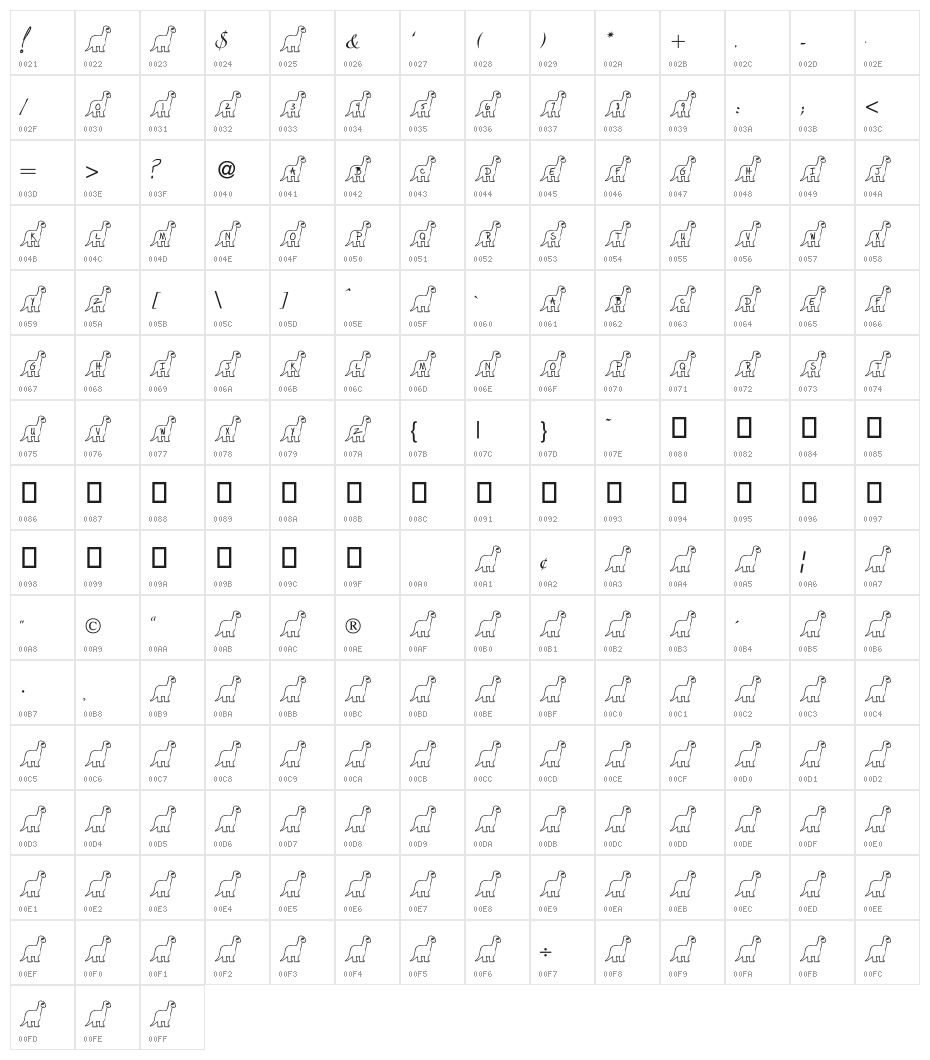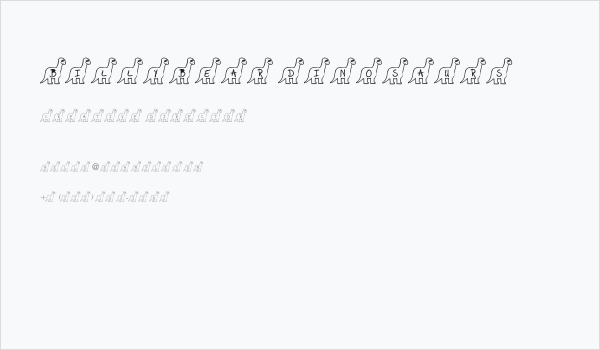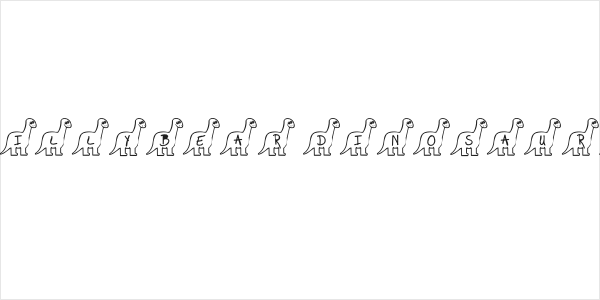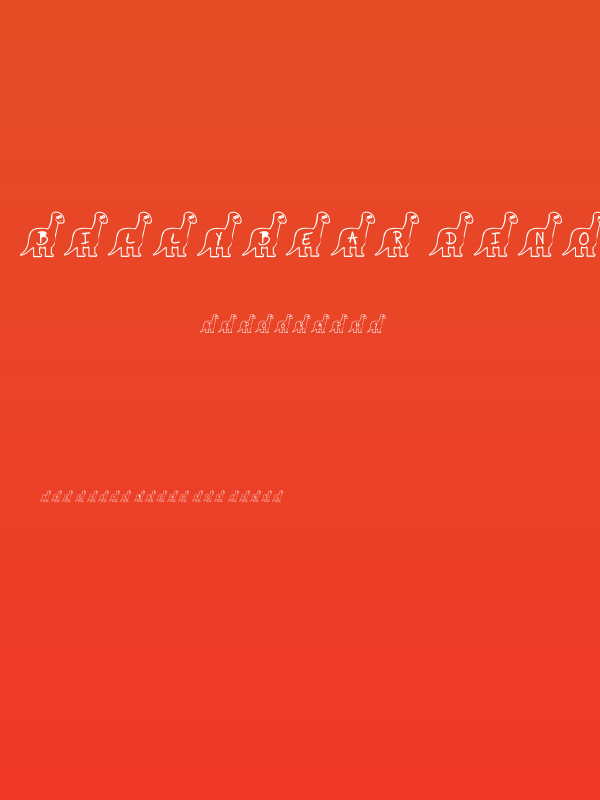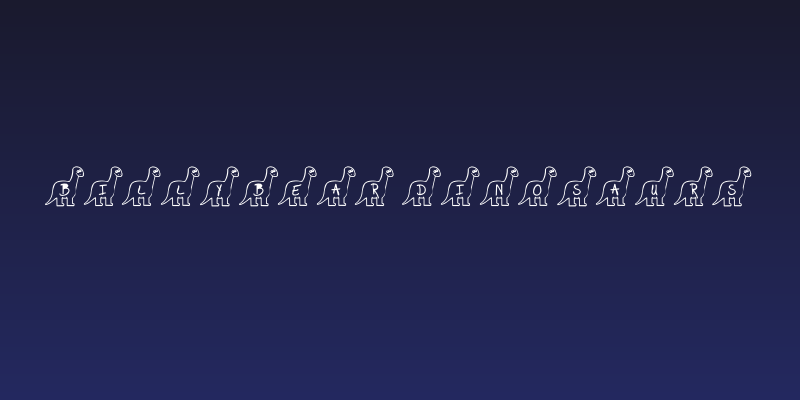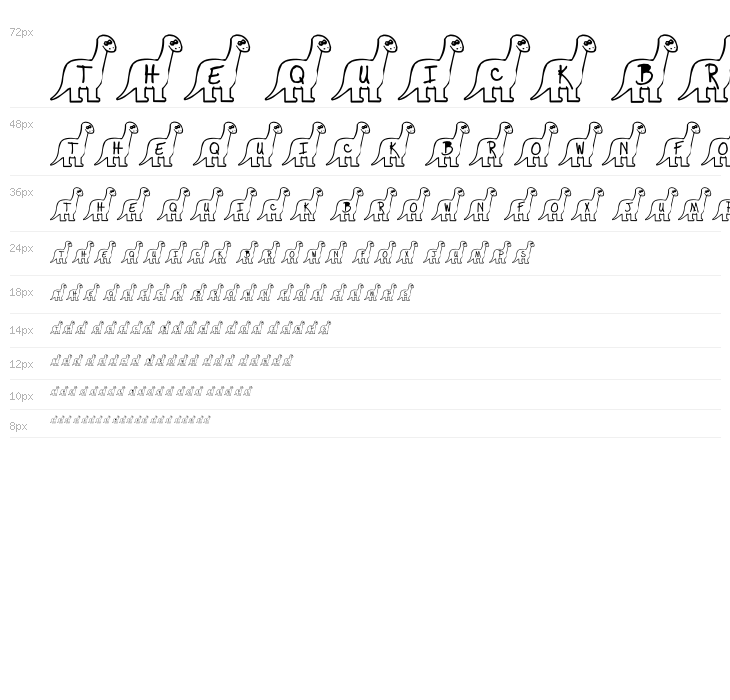
BillyBear Dinosaurs Font
BillyBear Dinosaurs Description
This playful and whimsical font features characters embedded within dinosaur shapes, creating a unique and engaging visual experience. Each letter and number is creatively designed to fit within the outline of a dinosaur, making it ideal for projects that require a fun and imaginative touch. The font maintains a consistent style across all characters, ensuring readability while adding a distinctive flair. The use of dinosaurs as a motif adds a sense of adventure and curiosity, appealing to both children and adults. This font is perfect for educational materials, children's books, themed party invitations, and any project that aims to capture the joy and wonder of the prehistoric world.
| Overall Style | Whimsical |
| Use Case | Headlines, Logos, Decorative text |
| Proposed Projects | Ideal for children's books, educational materials, themed party invitations, and playful branding. |